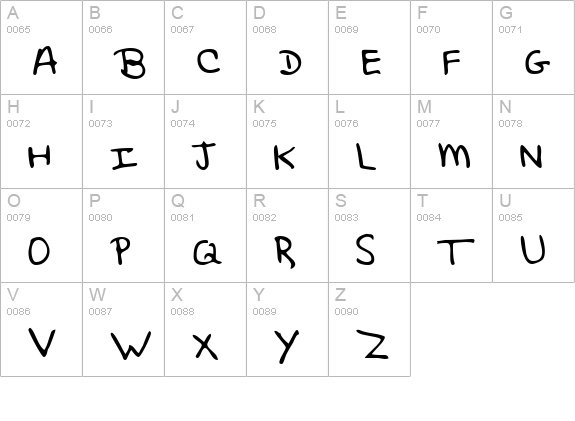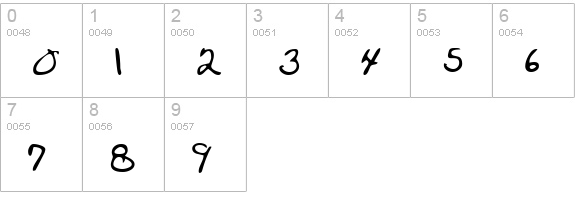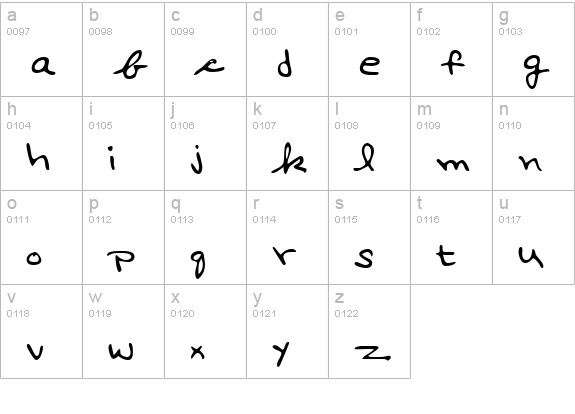
AshtonsHand Regular Font Details
AshtonsHand Regular is the standard, neutral variant in the AshtonsHand typeface family \xE2\x80\x94 well suited to general body text, paragraphs, and standard typographic work.
AshtonsHand Regular font is a charming and versatile typeface that exudes elegance and sophistication. With its handwritten style and flowing curves, this font adds a personalized touch to any design project. Perfect for invitations, branding, and social media graphics, AshtonsHand Regular is sure to make a statement. What's even better is that AshtonsHand Regular font is available for free download at FontsMarket.com. This means you can easily access and use this beautiful font in your projects without any cost. Don't miss out on this amazing opportunity to enhance your designs with AshtonsHand Regular font today.